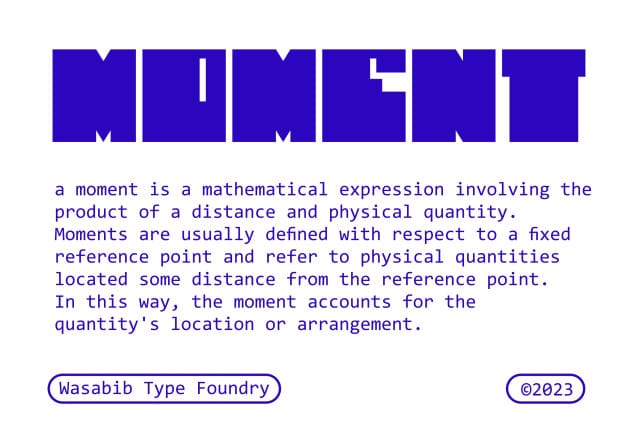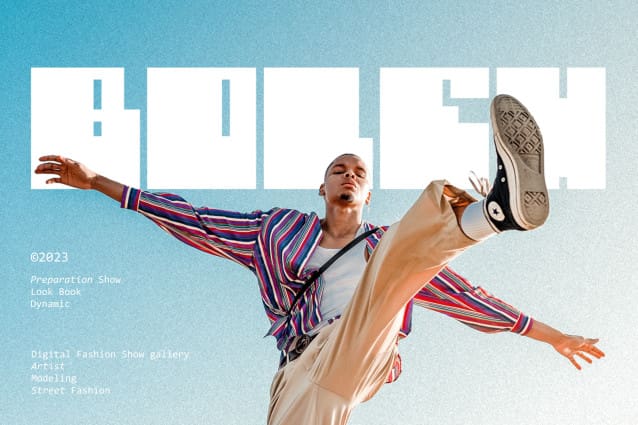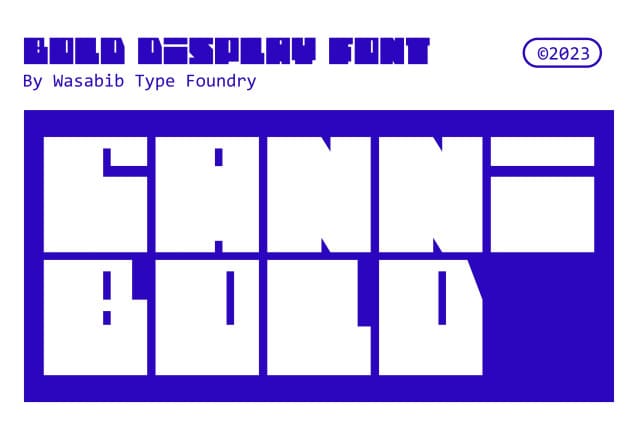
Cannibold Square Font
Cannibold Square Font is a Bold, modern, and square font is a typographic style that exudes confidence and contemporary flair. With its clean lines and strong presence, this font captivates the eye and demands attention. Each letter is meticulously crafted to create a striking visual impact, making it perfect for a wide range of design applications.
The bold weight of this font adds a sense of strength and power to every character. It conveys a sense of assertiveness and stands out, even from a distance. The thickness of the strokes gives each letter a solid and substantial feel, making it an excellent choice for headlines, logos, and attention-grabbing text.